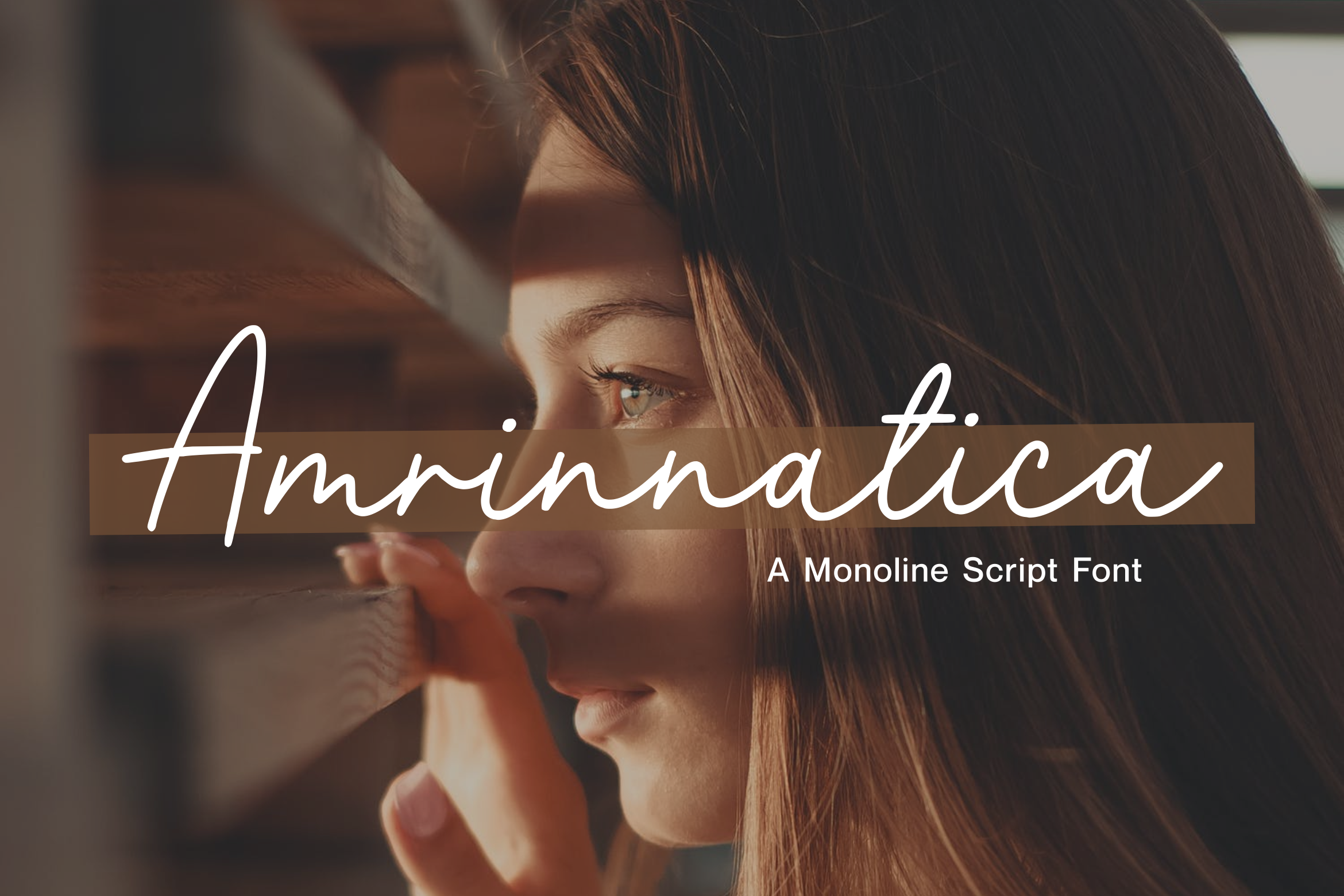
Proudly Presenting, Amrinnatica A Monoline Script Font.
Amrinnatica is perfect for any titles, logo, product packaging, branding project, megazine, social media, wedding, or just used to express words above the background.
Amrinnatica also come with Multi-Lingual Support.